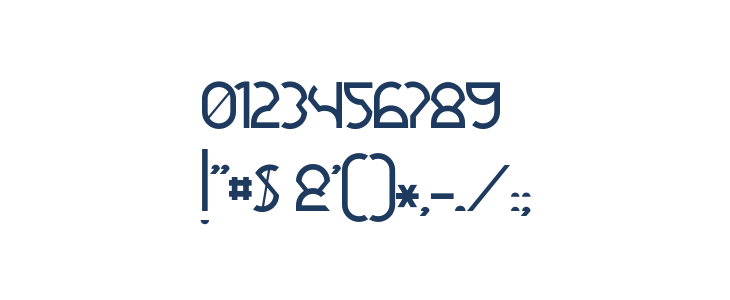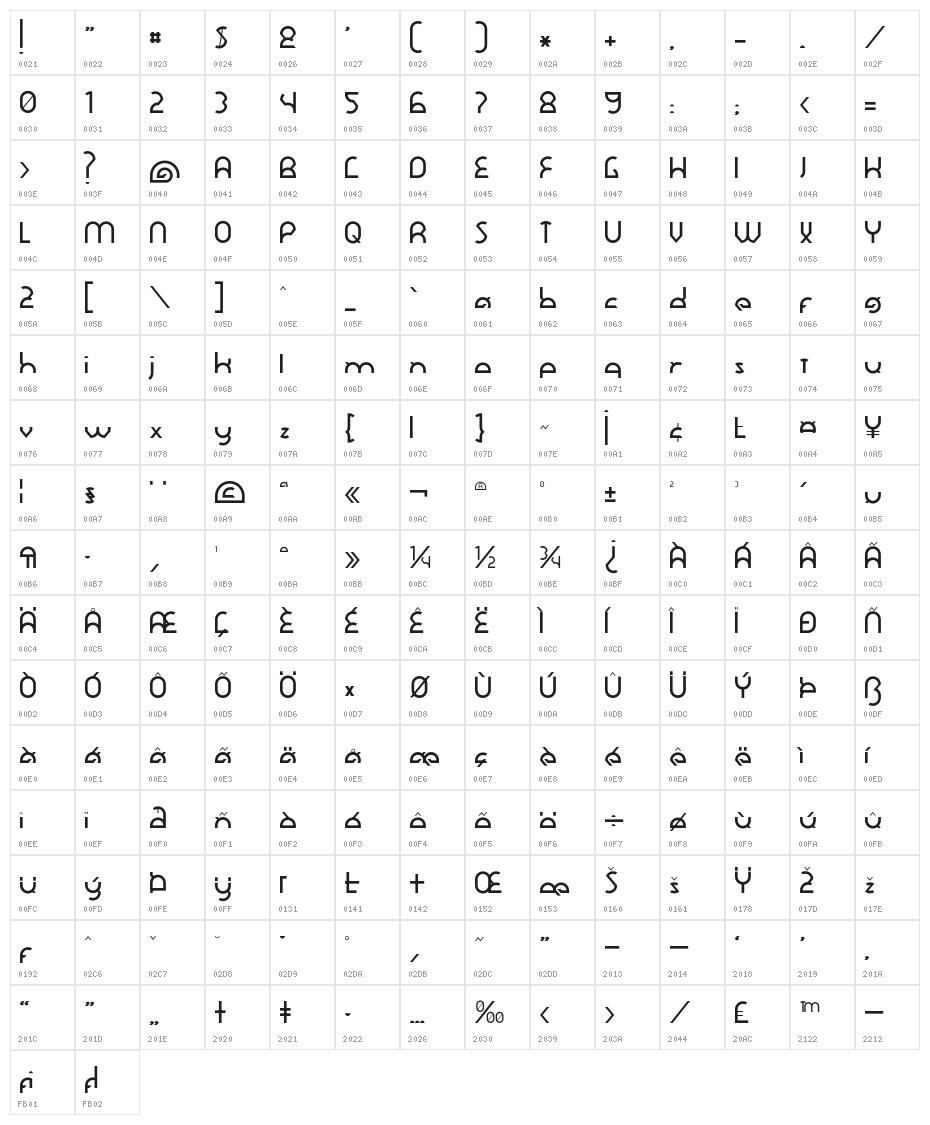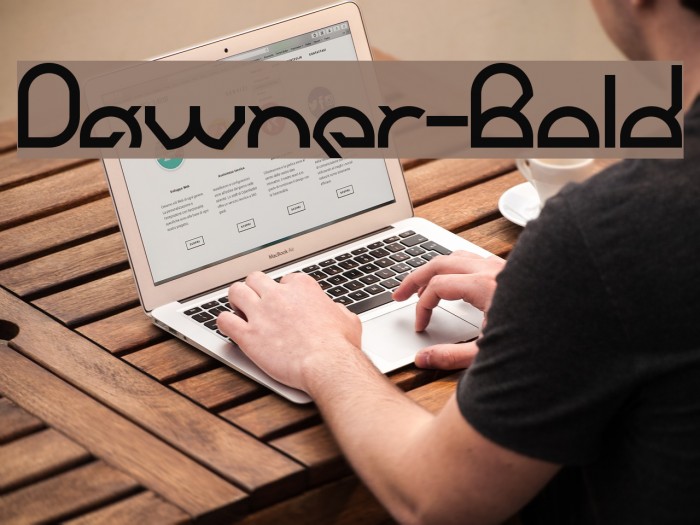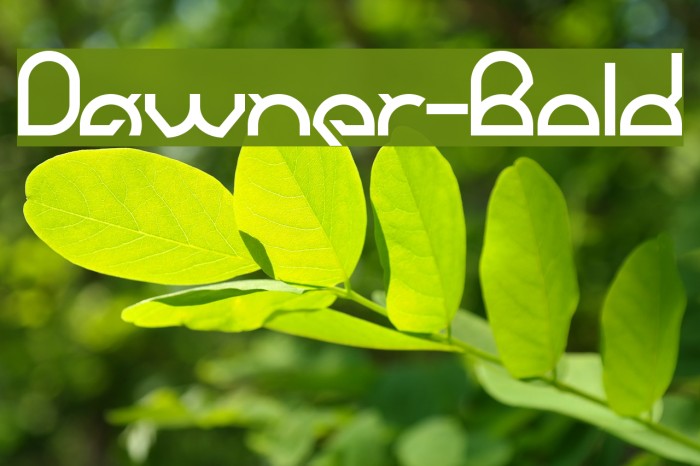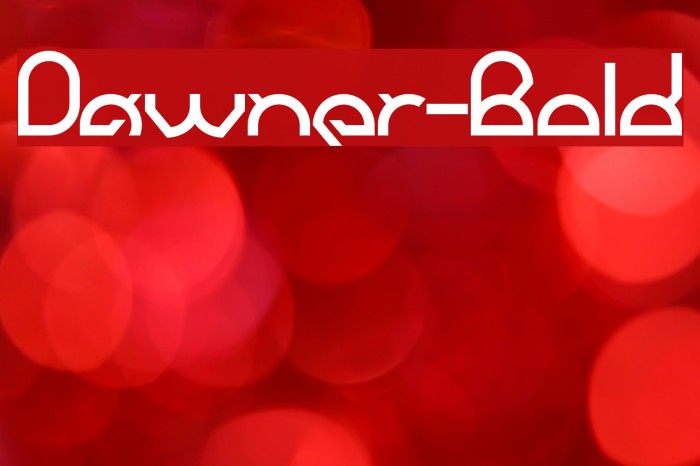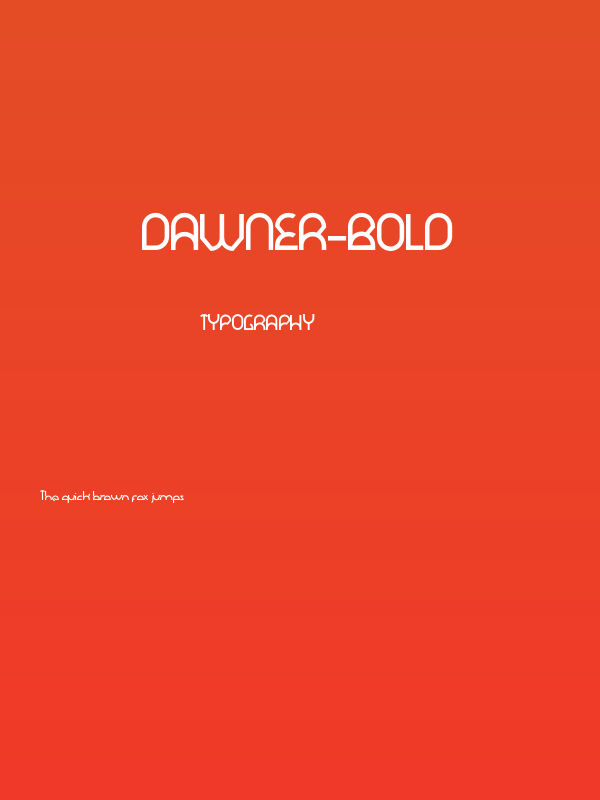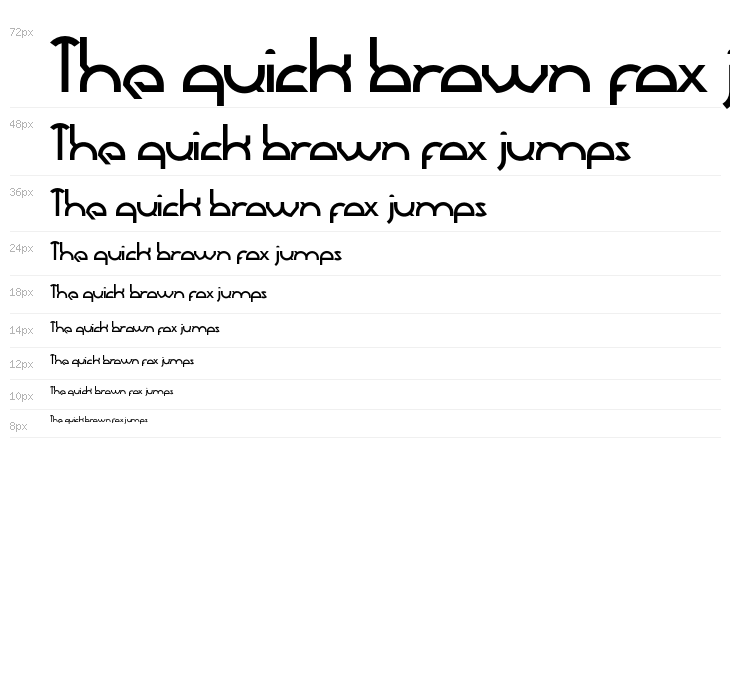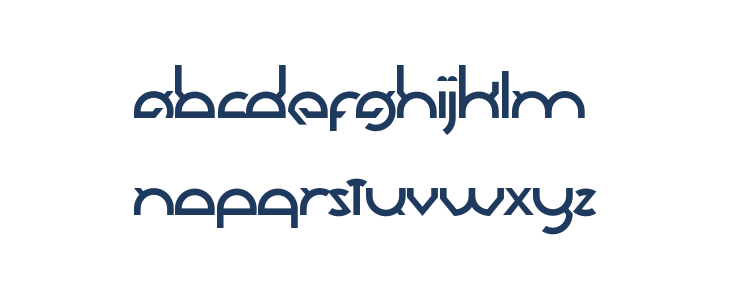
Dawner-Bold Font
Dawner-Bold Description
This font features a modern and geometric design, characterized by its clean lines and distinct shapes. The uppercase letters are bold and structured, with a futuristic aesthetic that is both eye-catching and functional. The lowercase letters maintain the geometric theme, offering a cohesive look across different text sizes. Numbers are equally bold and consistent with the overall style, ensuring readability and visual appeal. Special characters are uniquely designed, adding a creative touch to the font's versatility. The overall appearance is sleek and contemporary, making it suitable for a variety of design projects.